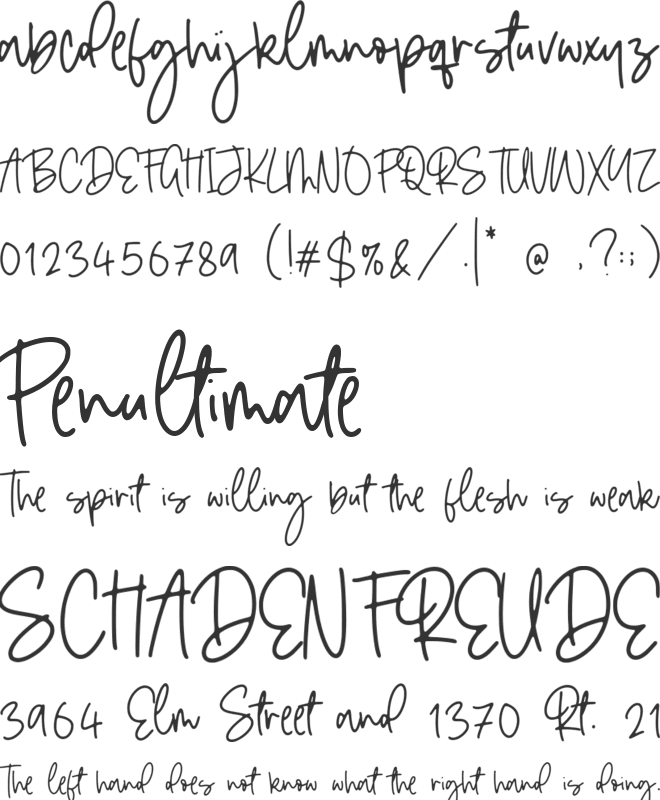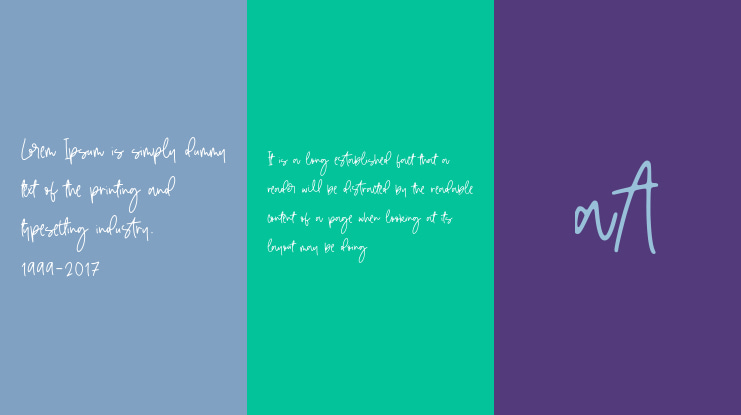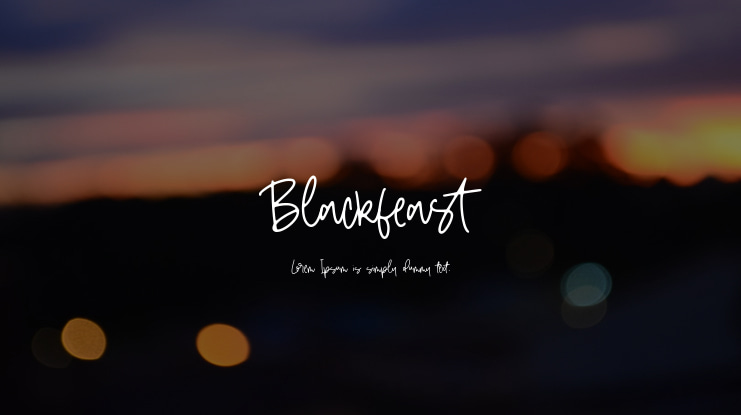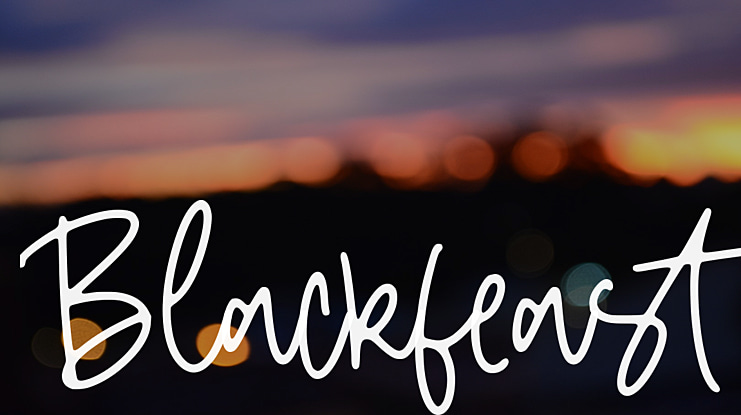
Blackfeast Font
Introducing by Letterative Studio : Blackfeast Font
Blackfeast is a Stylist Handwritten Font
Blackfeast is perfect for product packaging, branding project, megazine, social media, wedding, or just used to express words above the background.
Blackfeast also multilingual support